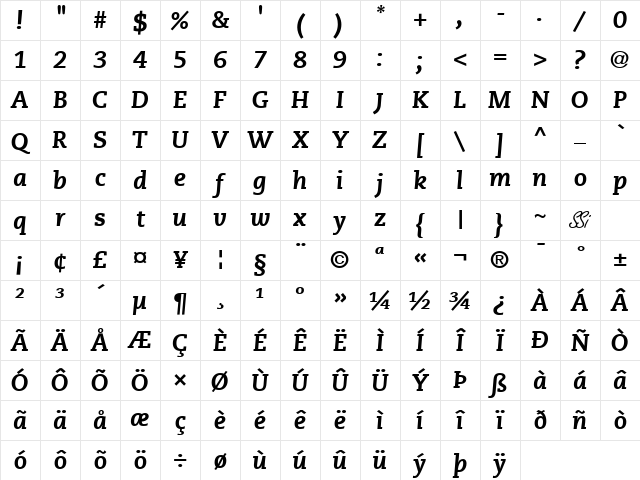
Monologue Black SSi Black Italic Free Font
Monologue Black SSi Black Italic
Monologue Black SSi Family
Monologue Black SSi Black Italic
Design Context for Monologue Black SSi
Monologue Black SSi uses fixed-width spacing throughout, giving it the structured, systematic character associated with coding environments and technical documentation. The slanted form adds forward momentum and visual energy.
Pro Tip: Use Monologue Black SSi with slightly increased line-height for extended reading - fixed-width spacing can feel dense in longer passages without extra breathing room.